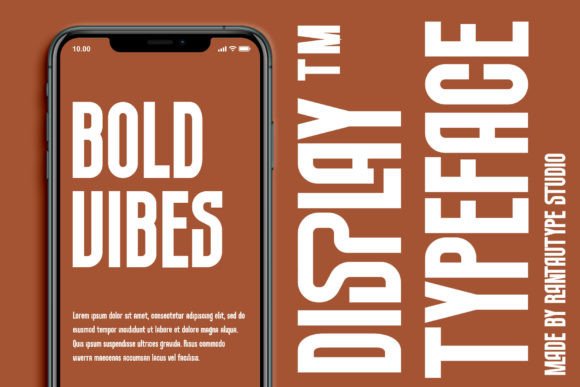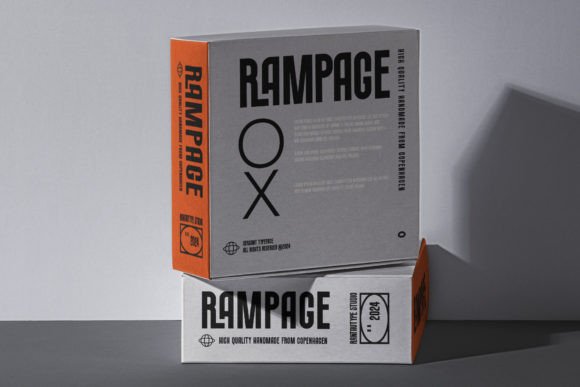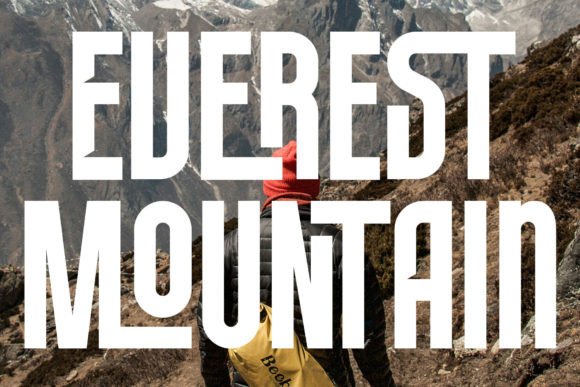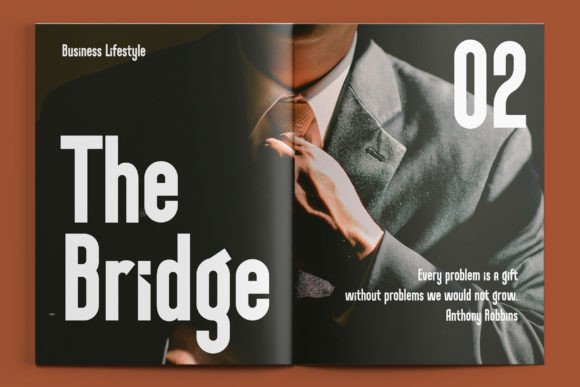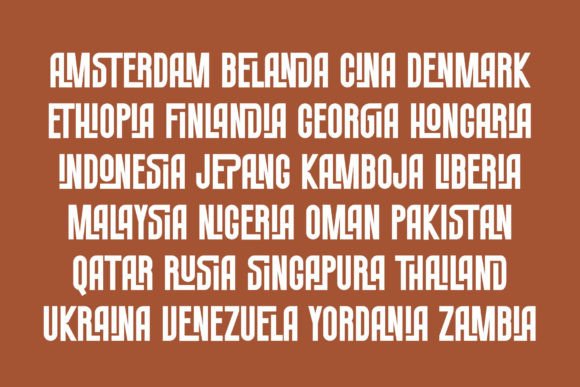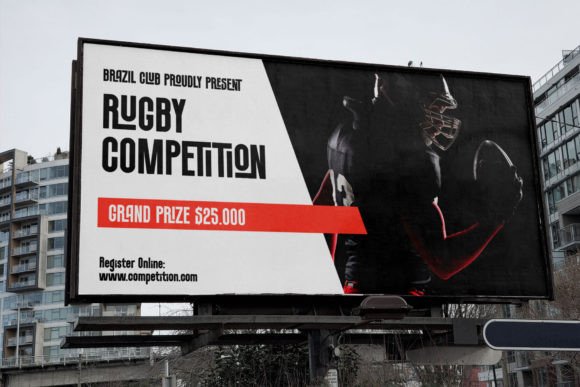
Introduction to Sersant Font
Sersant is a modern bold condensed font with strong and tall form.
It is a perfect choice for any creative endeavor, chic, lifestyle design such as logos, advertisements, watermark on photography, stationery, branding project, display and magazine, invitation, corporate brand, product design, label, business project and many other project with retro touch .
Sersant Font offers exceptional quality and versatility, making it a valuable addition to your design toolkit. Whether you’re creating for personal projects or commercial use, Sersant Font delivers professional results.